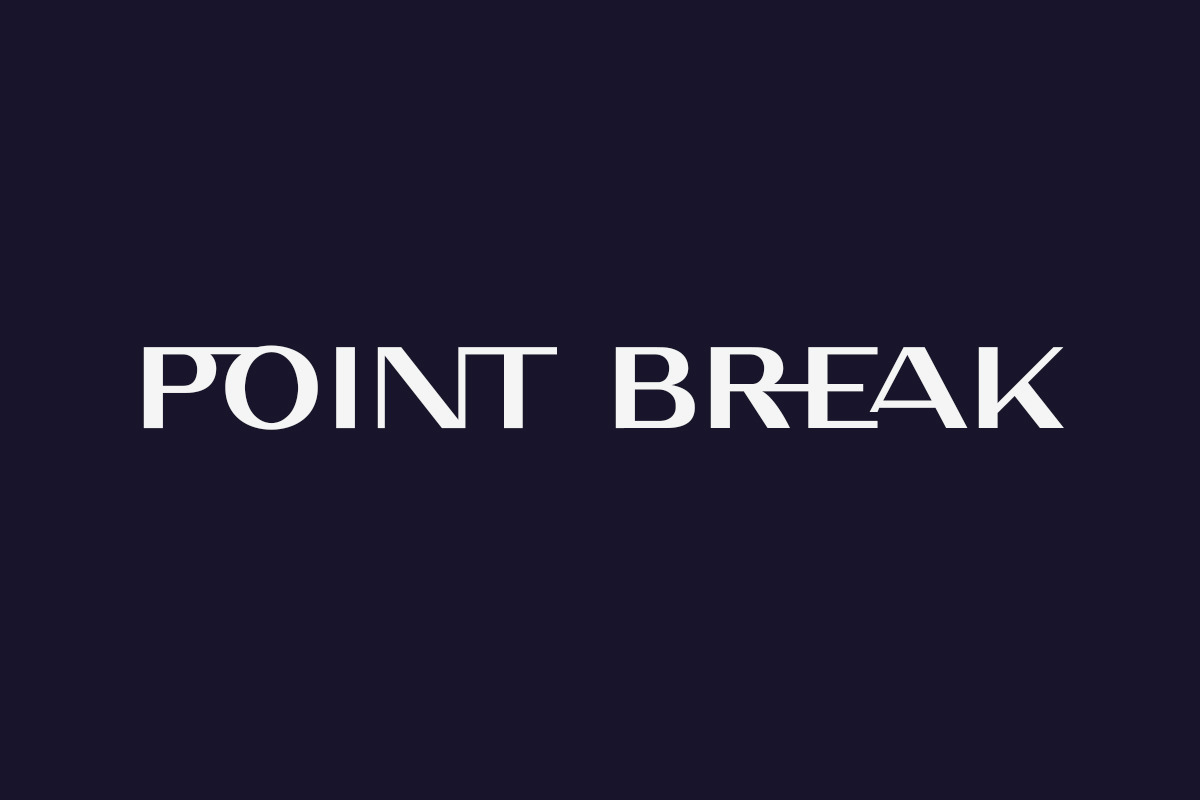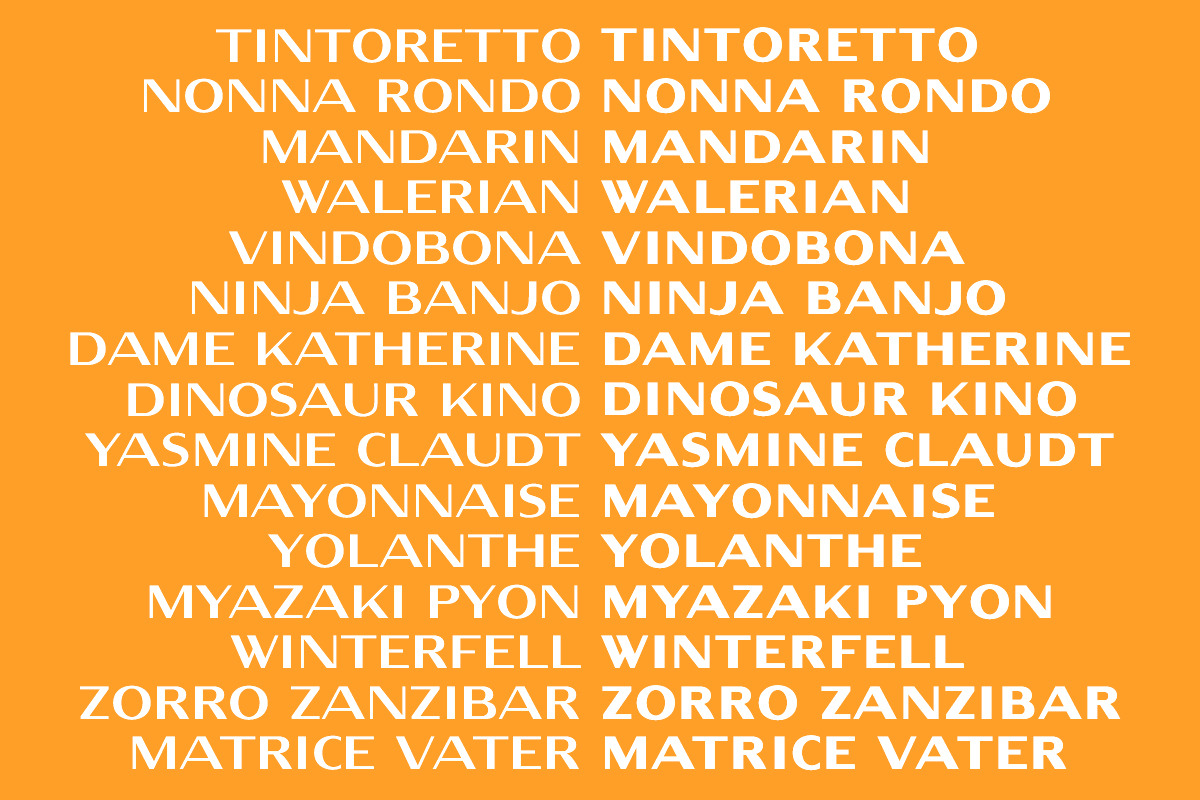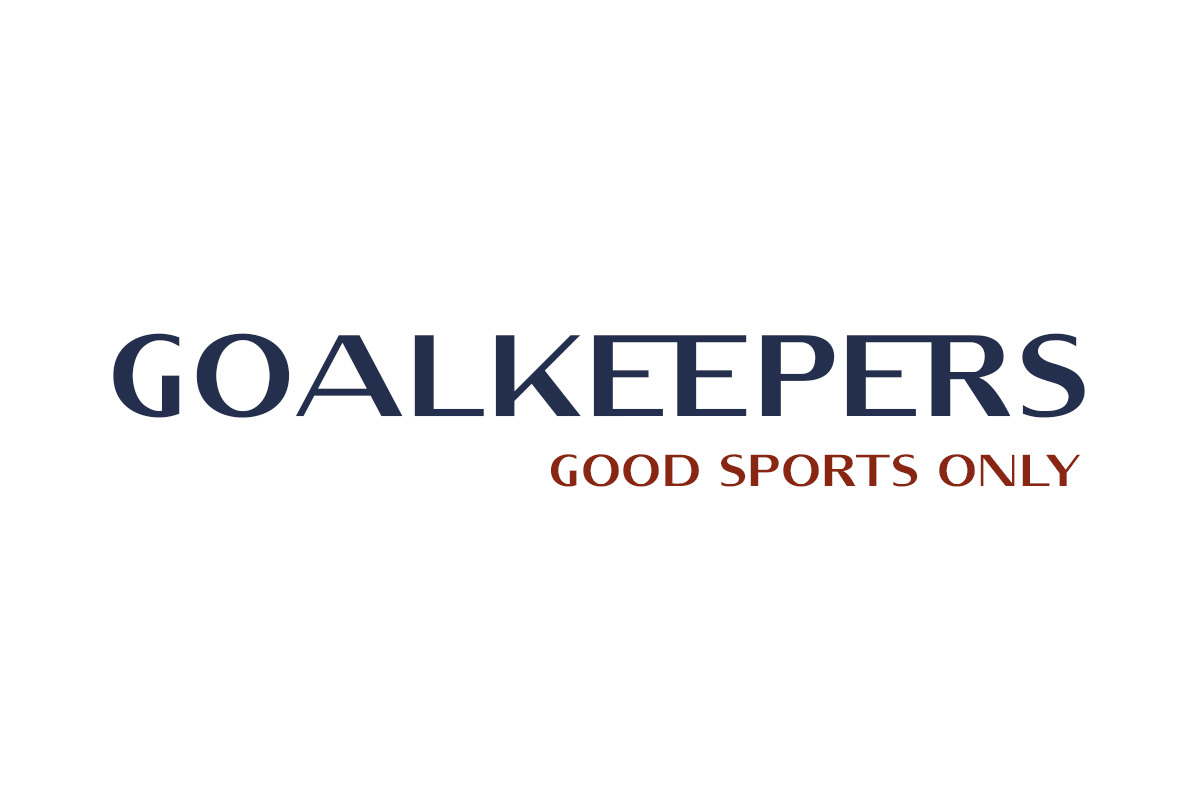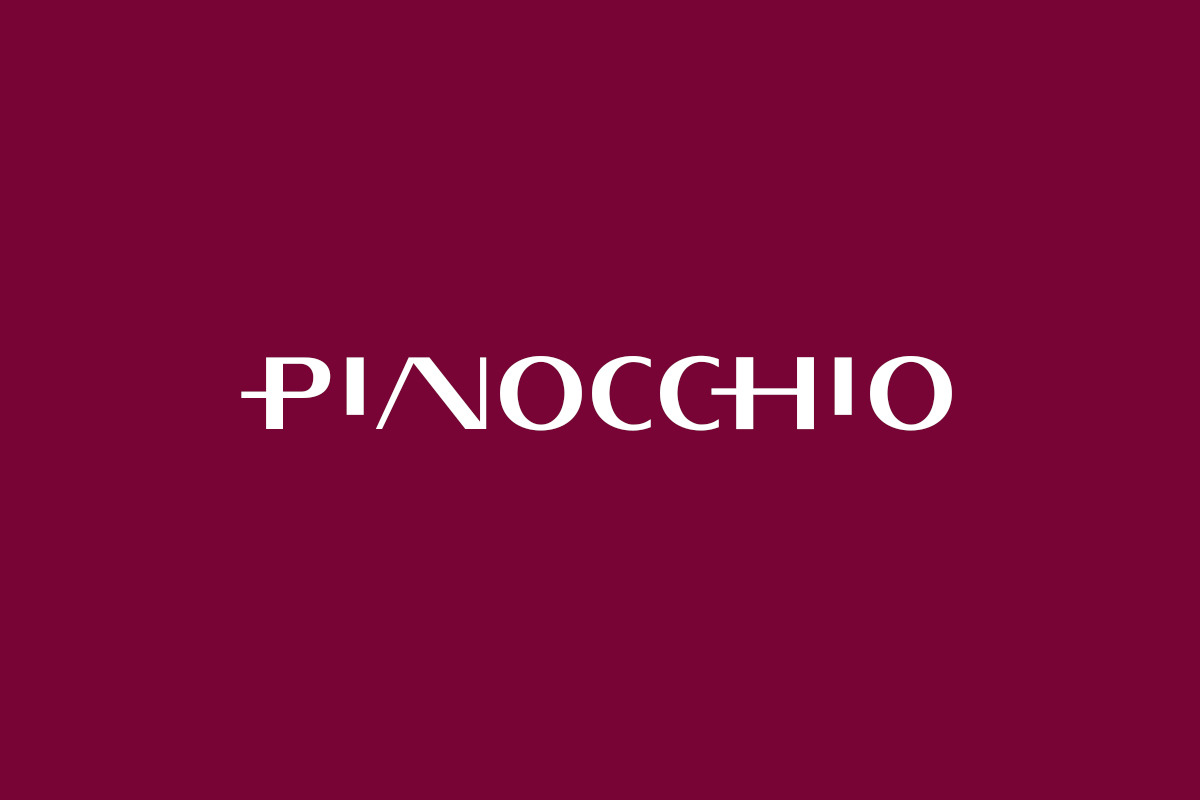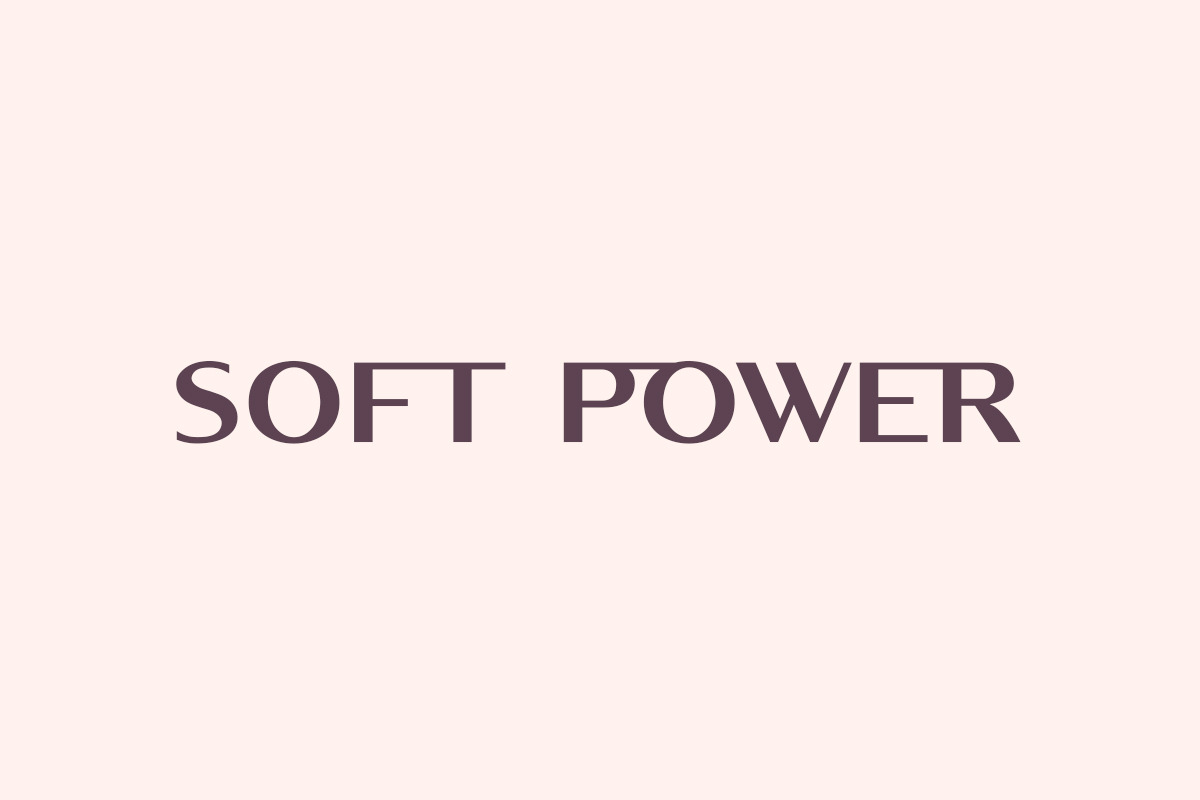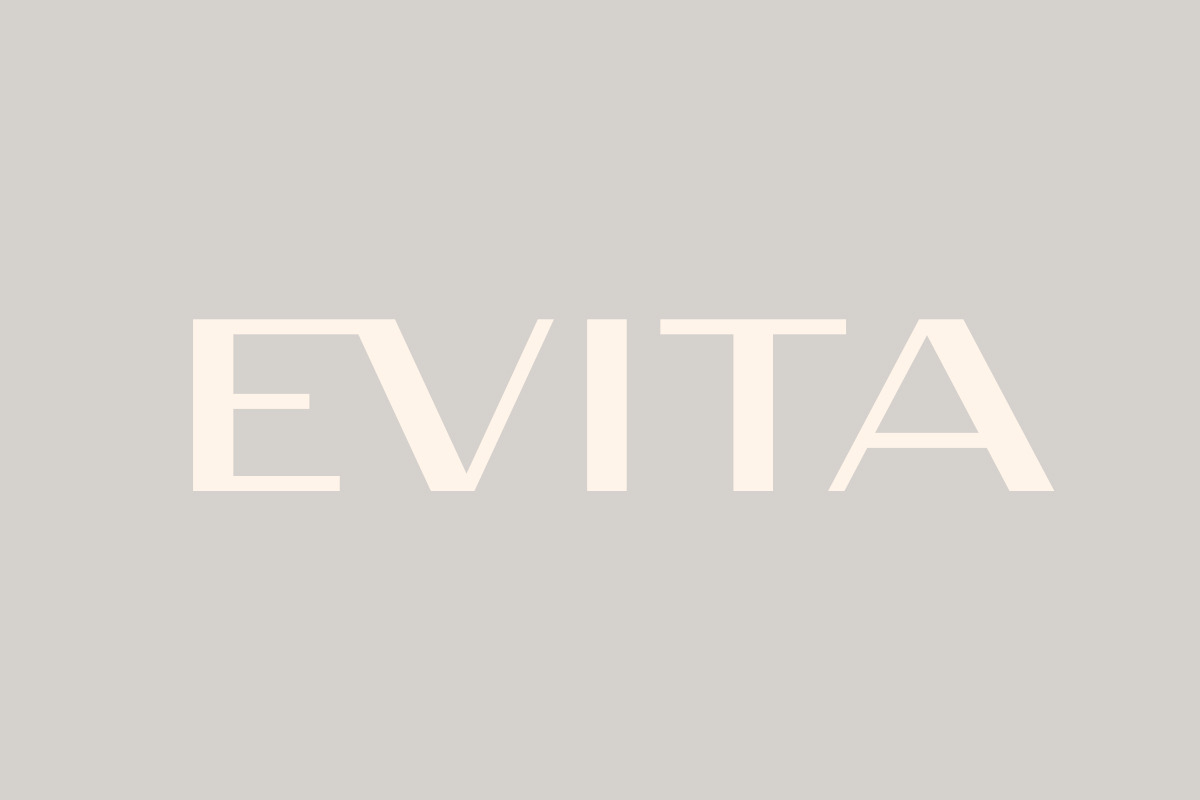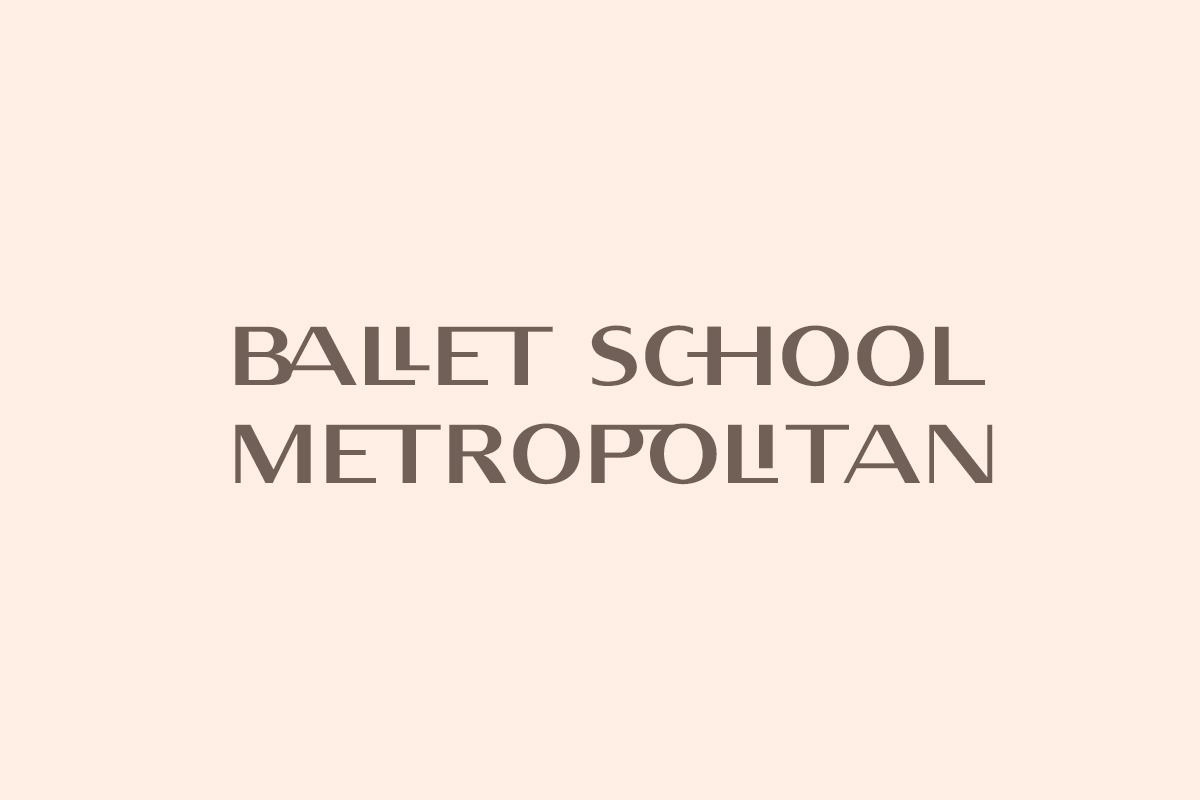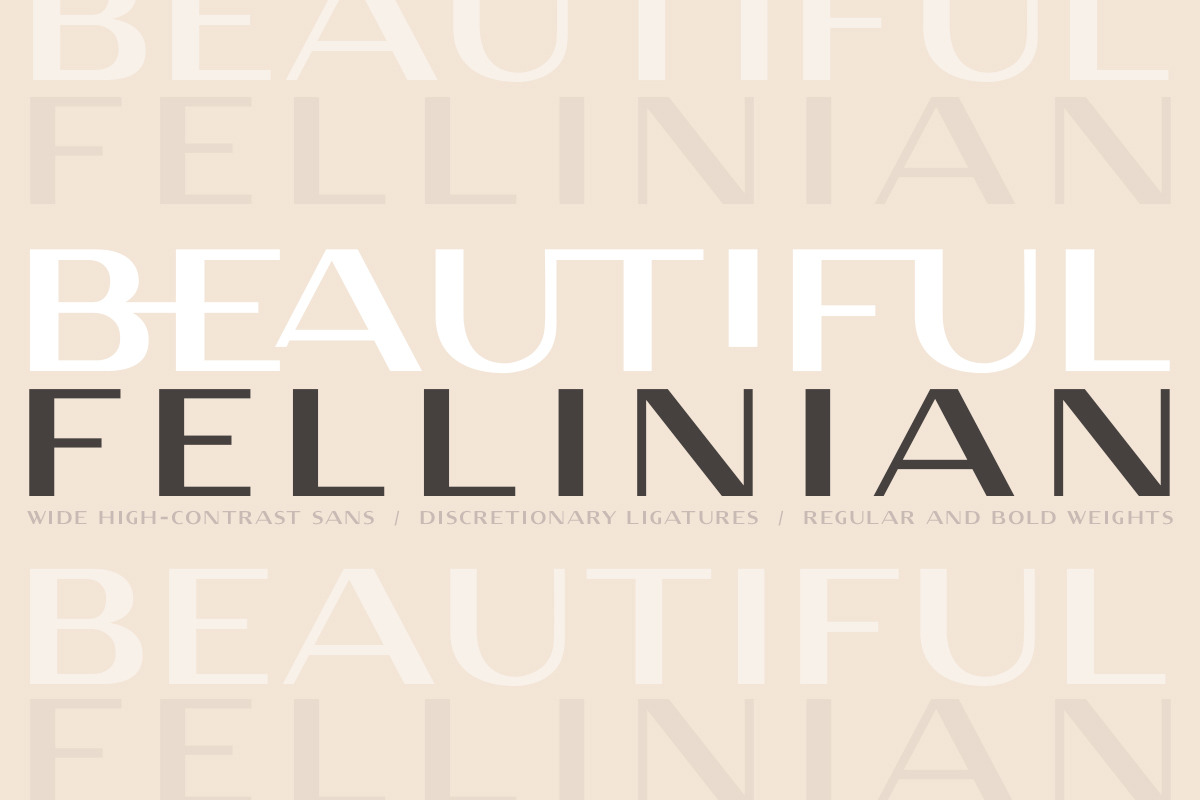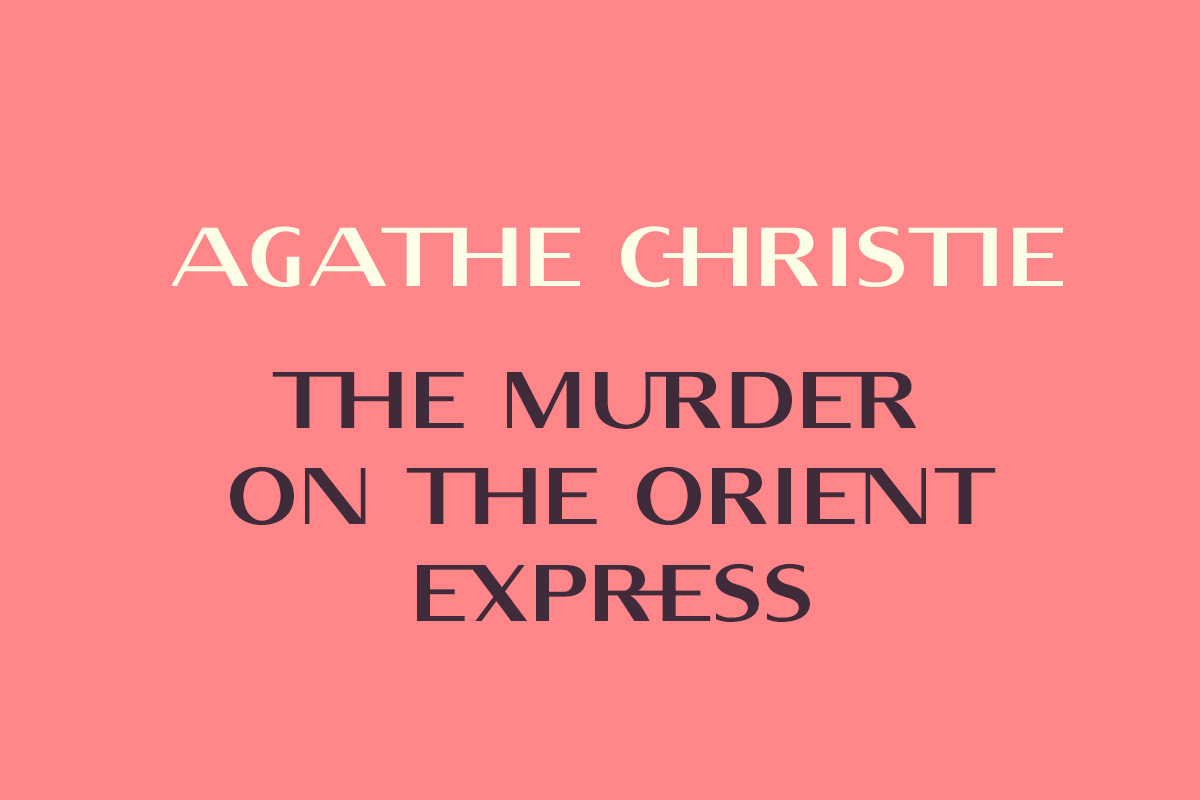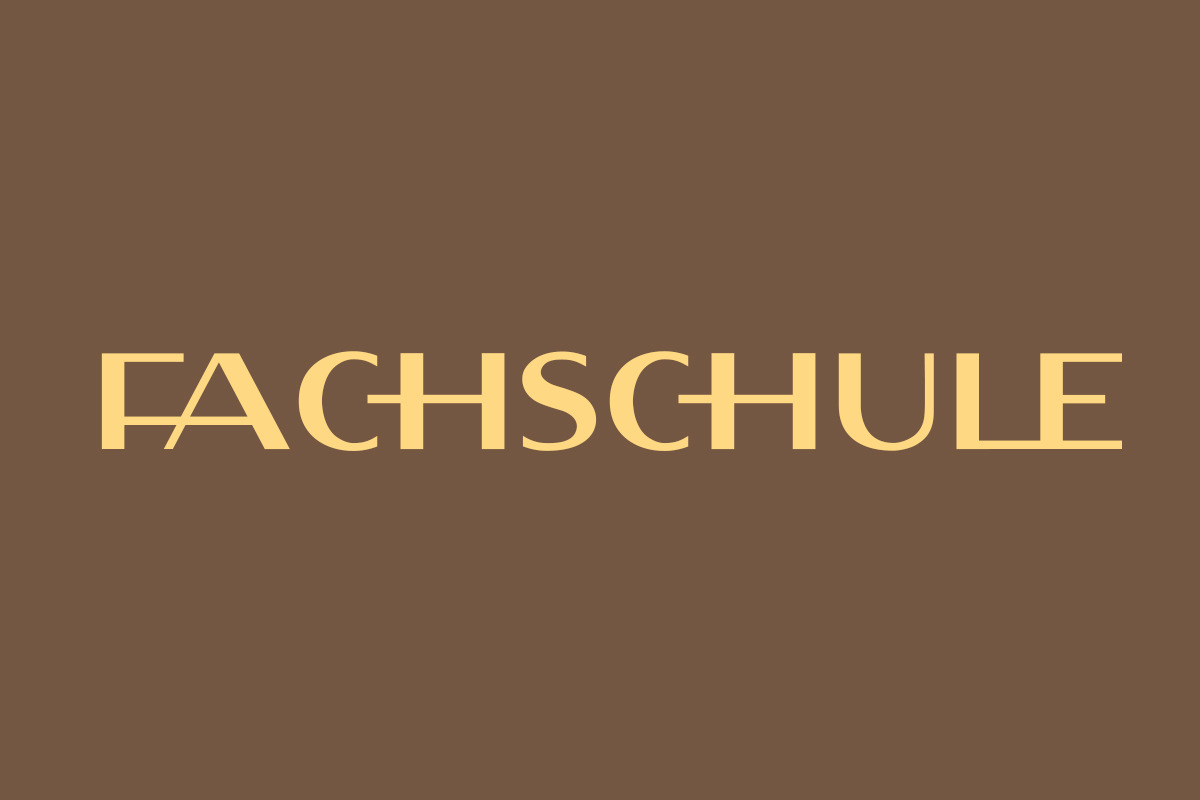
Fellinian - Mid Century Logo Sans
Fellinian is a wide high-contrast ligature sans in two weights (Regular and Bold).
A classy retro inspired typeface, Fellinian suits best for wordmark logo graphics, branding suites, mastheads and publishing titles.
The typeface includes:
- all-caps character set;
- over 40 discretionary ligatures;
- 14 stylistic alternates;
- numbers and punctuation;
- multilingual support for Western European languages;
- two weights, Regular and Bold.